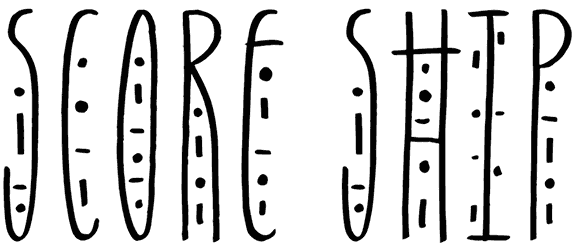
Score Ship Font
How would you like to have the opportunity to try out cartoonish letters of a decorative font in your graphic design and see which one improves your work the most? Think of all the playful designs possible, and Score Ship certainly blows you away.